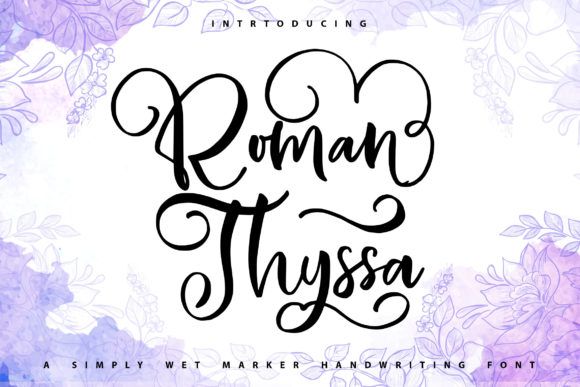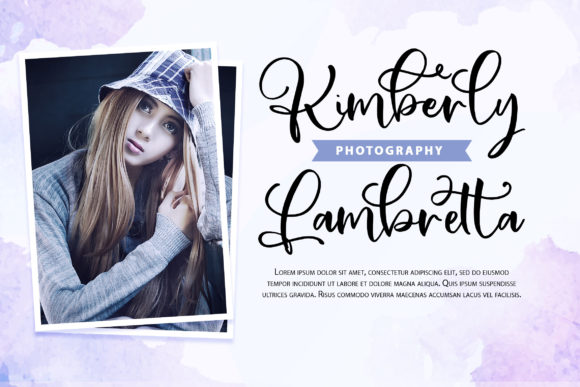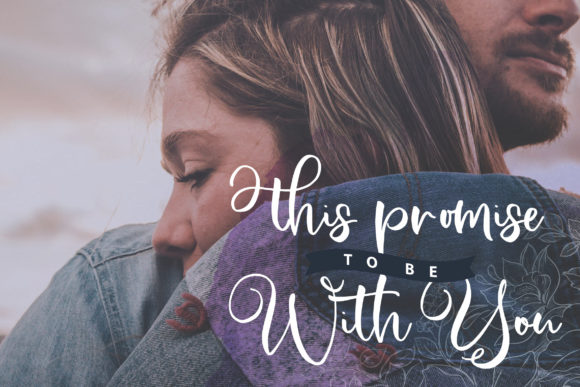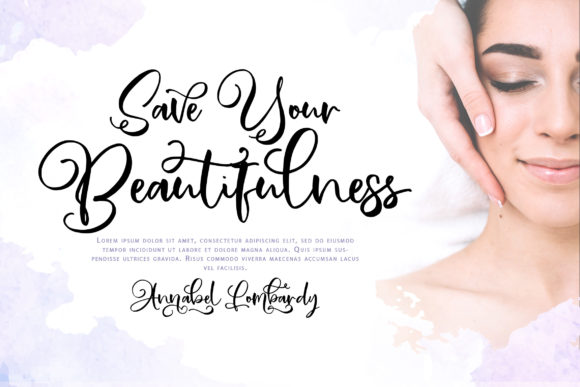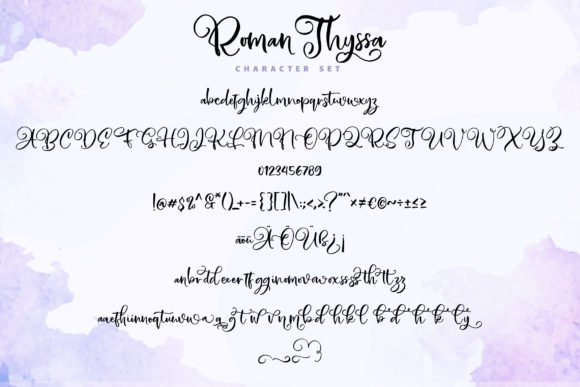
About Romanthyssa Font
Romanthyssa is an incredibly stylish and cool script font. It is PUA encoded, which means you can access all glyphs and swashes with ease! Romanthyssa has a modern yet whimsical style and it will undoubtedly immerse your designs into a magical world.